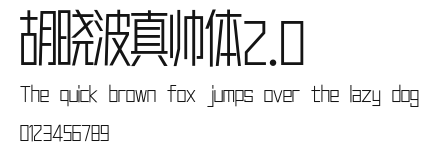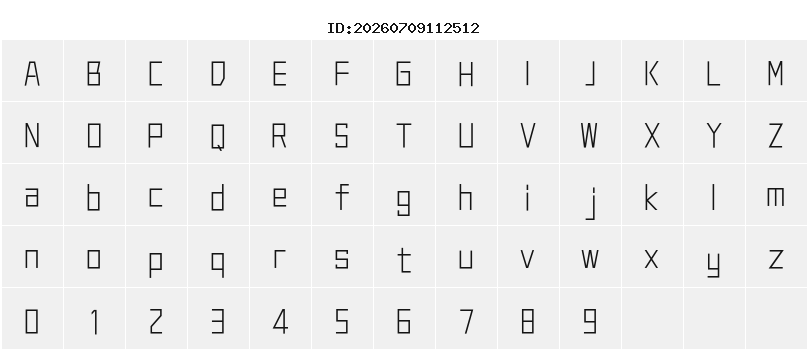
• Font Name: 胡晓波真帅体2.0
• Full Font Name: 胡晓波真帅体2.0
About 胡晓波真帅体2.0.otf
胡晓波真帅体2.0.otf is a modern, elegant sans-serif font designed for ultimate readability and visual harmony. Perfect for branding, headlines, web design, and print materials.